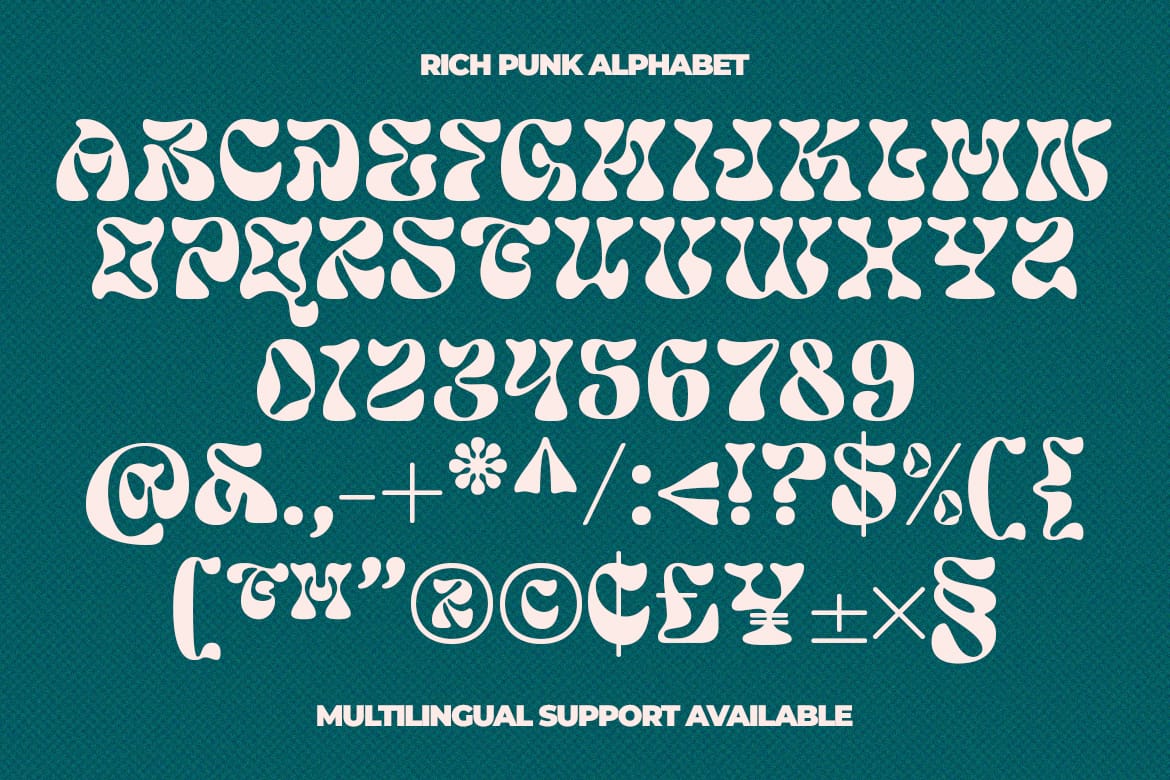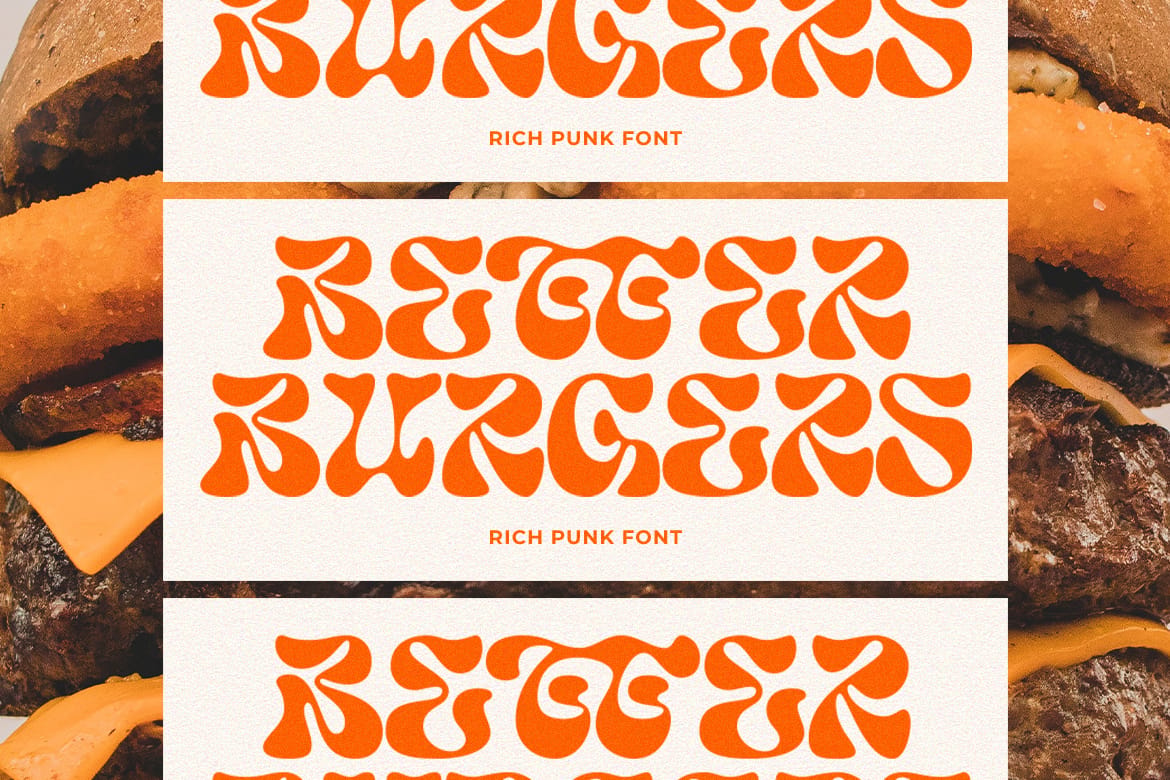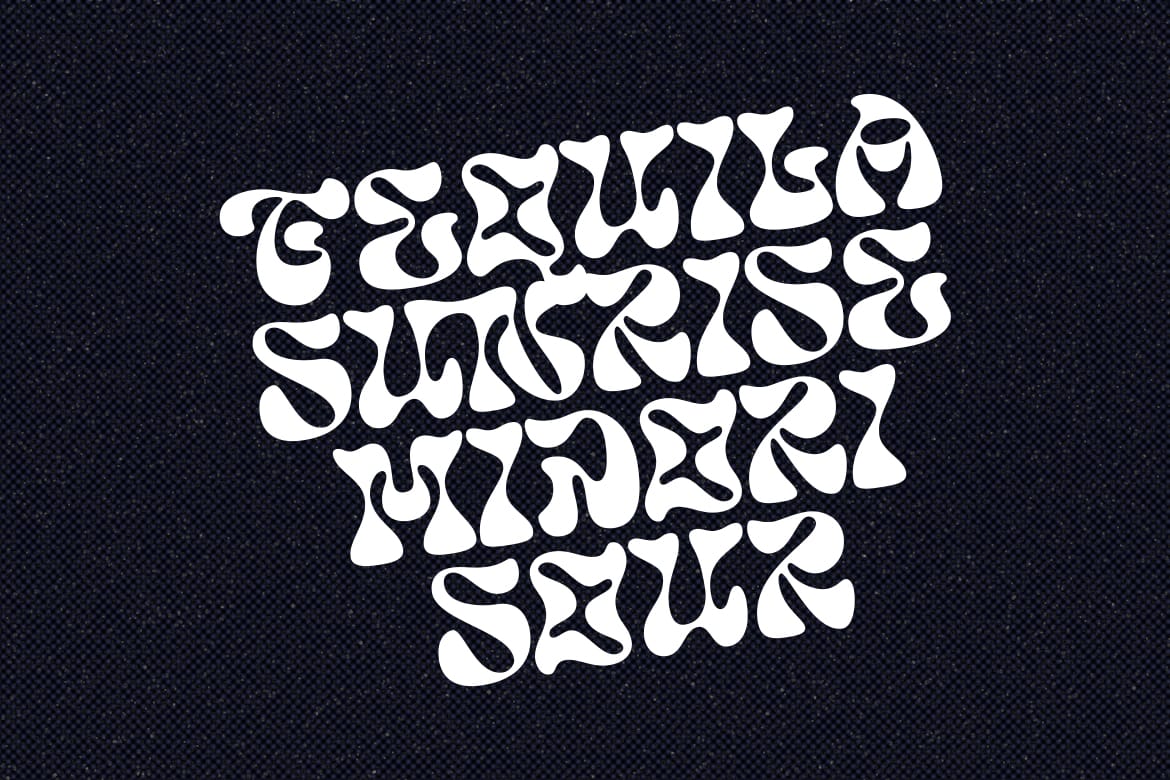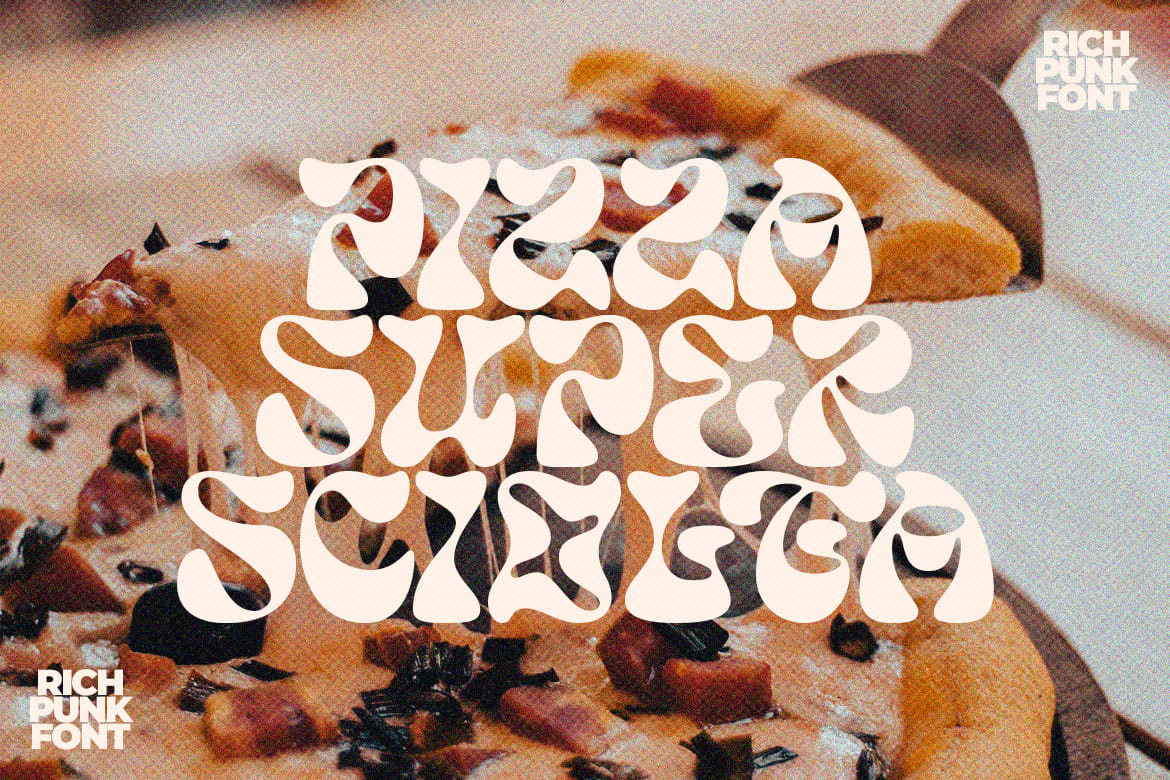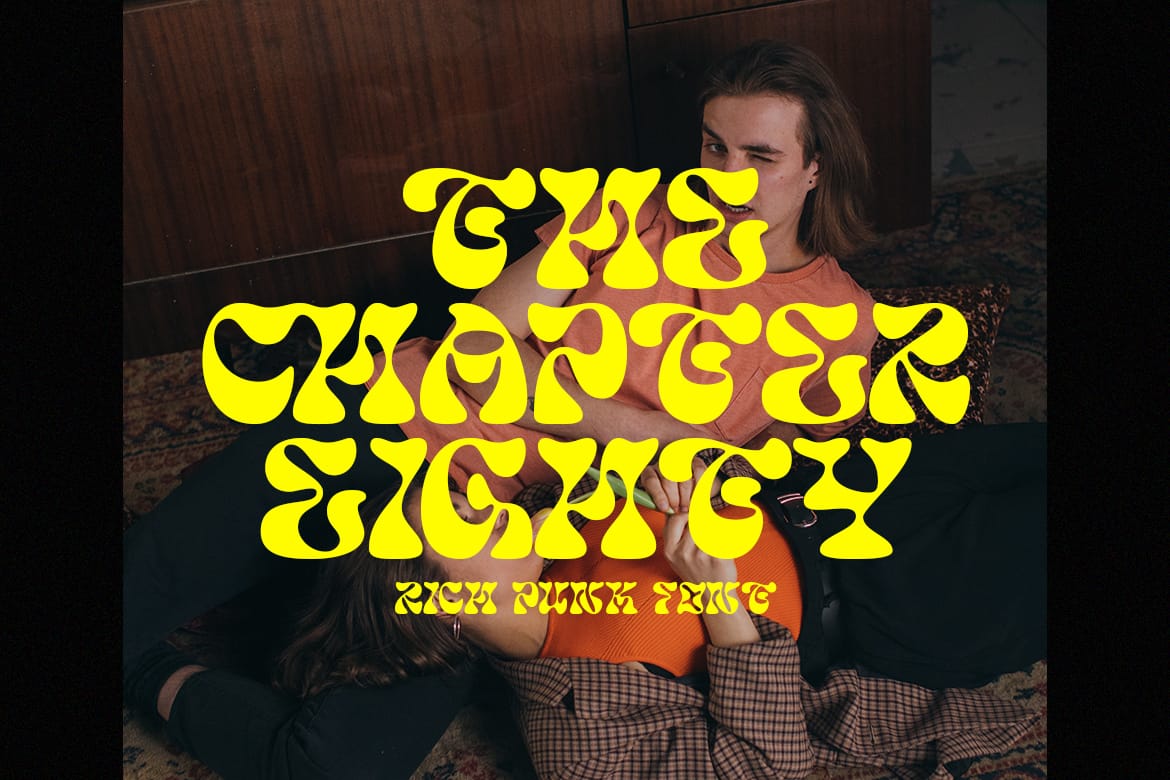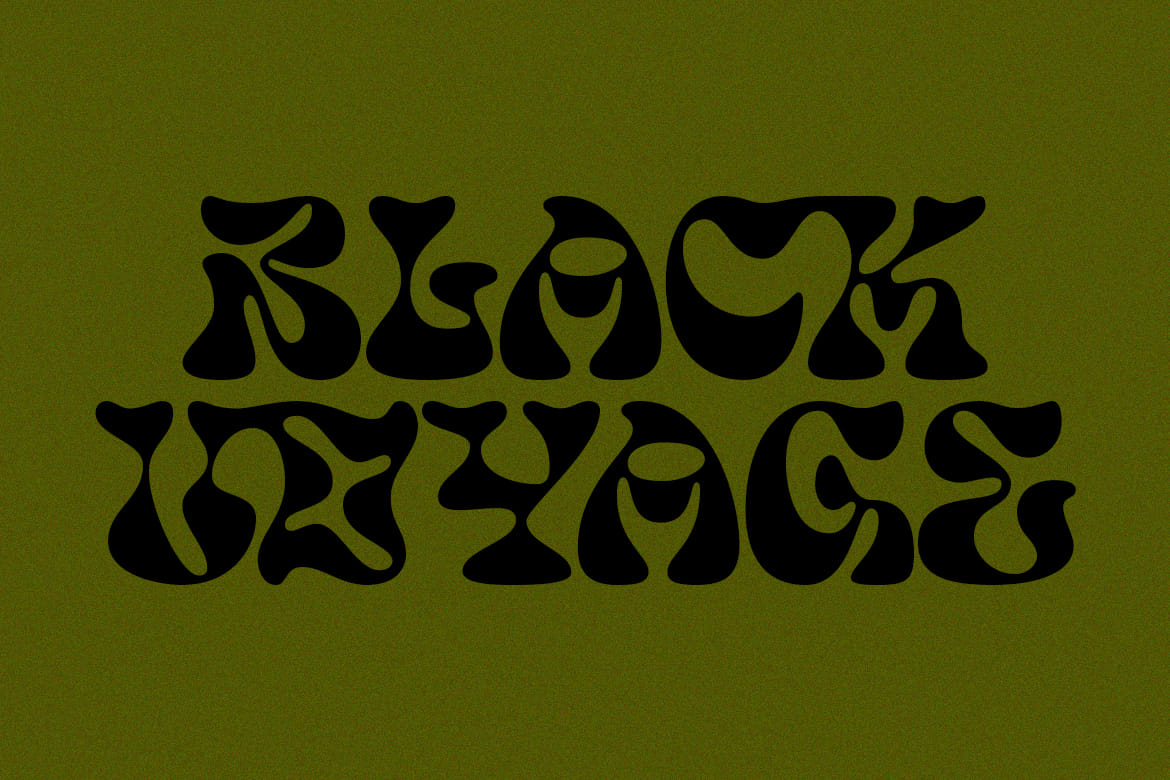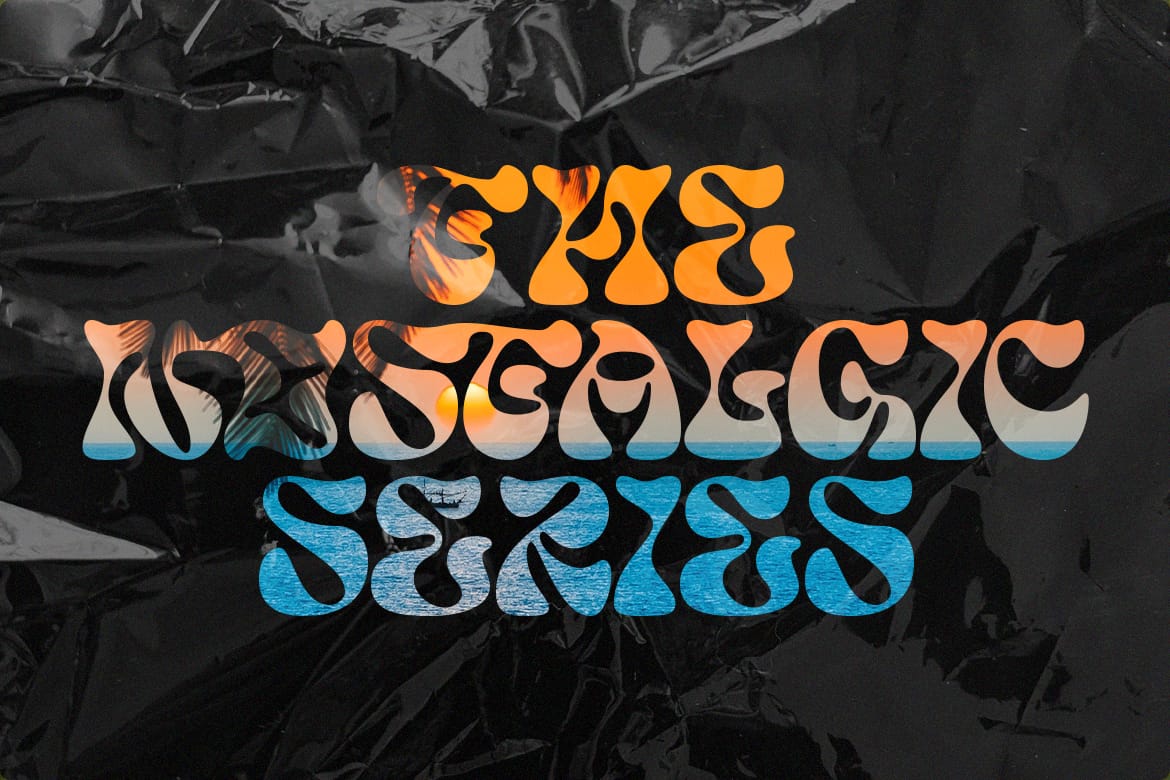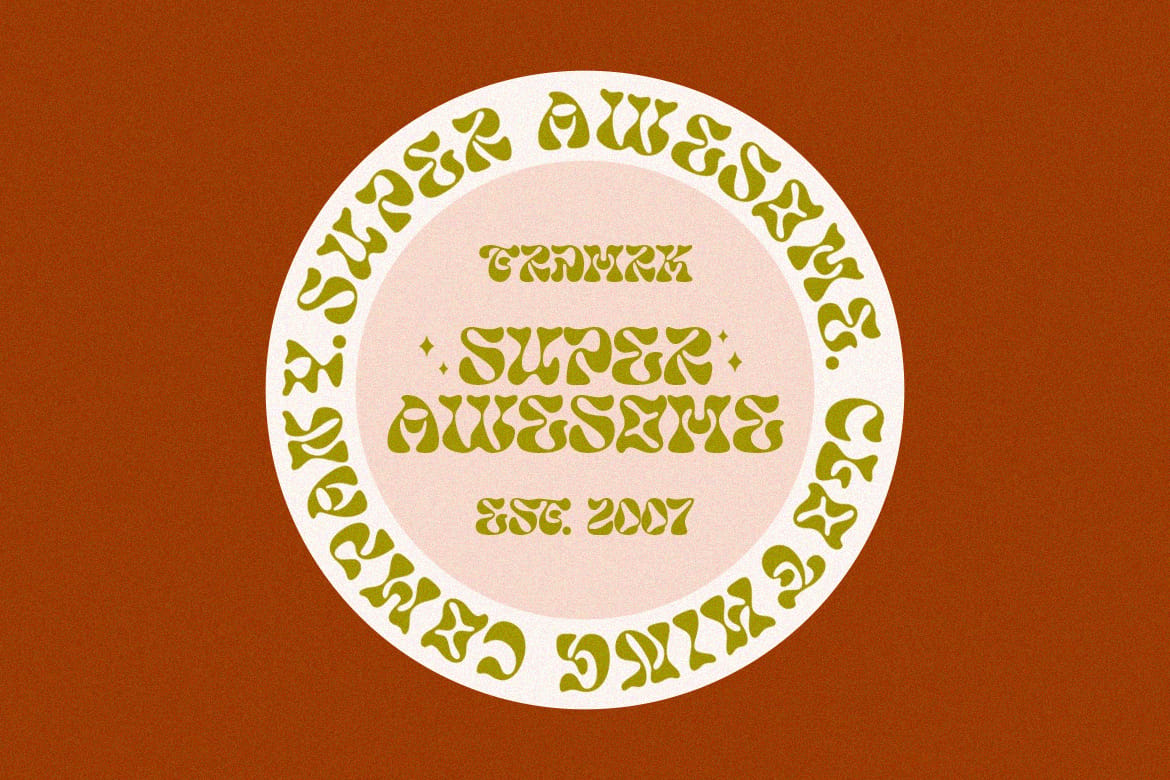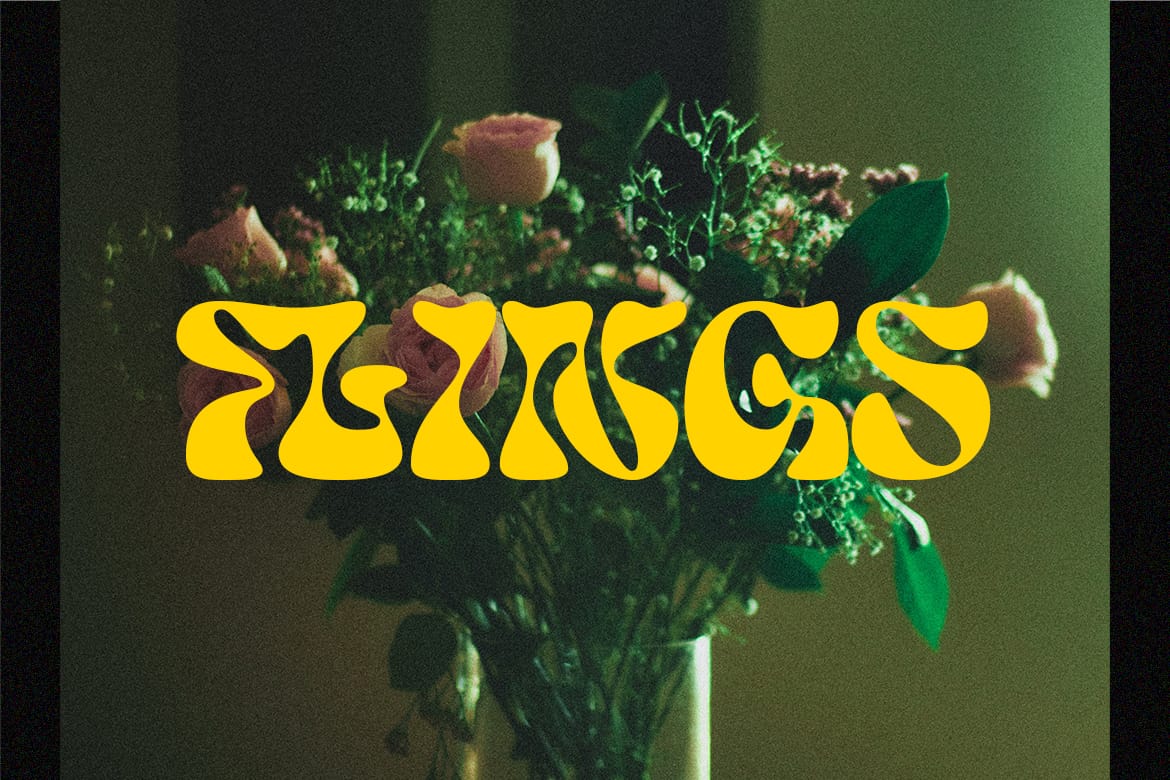
Rich Punk - Display Font
Rich Punk is a unique font. Experimenting with groovy and psychedelic fonts created this distinctive typeface. It is suitable for poster designs, merchandise, logos and many others. Features: Uppercase, Lowercase, Numeral, Punctuation, Multilingual & Ligatures. Obtained file format: Otf, Ttf & Woff.
• Groovy psychedelic display font
• Multilingual with ligatures included